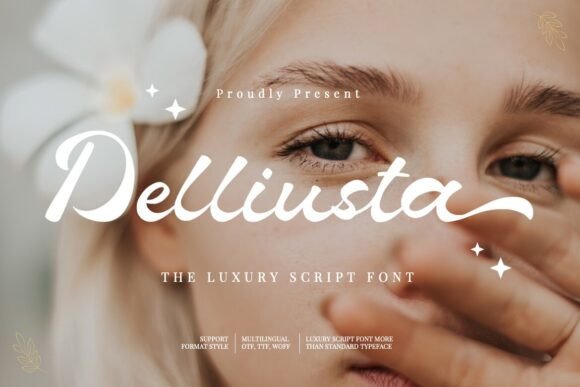
Delliusta Font: Elevate Your Designs with Luxury and Elegance
In the world of typography, fonts play a crucial role in conveying the tone and personality of a brand or design. Among the numerous fonts available, Delliusta stands out as a luxurious and elegant script font that has gained popularity for its unique, handwritten feel. In this article, we’ll delve into the features, benefits, and uses of the Delliusta font, exploring how it can elevate your designs to new heights of sophistication and style.
What is Delliusta Font?
Delliusta is a luxury script font designed to add a touch of elegance and refinement to any design project. Its smooth, flowing letters are carefully crafted to create a sophisticated and luxurious look, making it perfect for high-end designs, invitations, logos, and more. The font’s unique, handwritten feel sets it apart from other script fonts, giving it a distinctive and eye-catching quality.
Key Features of Delliusta Font
- Elegant and Stylish: Delliusta boasts a sleek and refined design, perfect for creating upscale visual content.
- Handwritten Feel: The font’s unique, handwritten quality gives it a personal and distinctive touch.
- Smooth and Flowing Letters: Delliusta’s letters are designed to flow smoothly, creating a sense of continuity and harmony.
- Luxurious and Sophisticated: The font’s luxurious feel makes it ideal for high-end designs, invitations, and logos.
- Versatile: Delliusta can be used for a wide range of design projects, from branding and advertising to packaging and editorial design.
Benefits of Using Delliusta Font
Using Delliusta font in your design projects offers numerous benefits, including:
- Instant Elegance: Delliusta adds a touch of elegance and sophistication to any design, instantly elevating its visual appeal.
- Unique Identity: The font’s distinctive, handwritten feel helps create a unique identity for your brand or design.
- Improved Readability: Delliusta’s smooth and flowing letters ensure excellent readability, making it perfect for body text and headlines.
- Flexibility: The font’s versatility allows you to use it for various design projects, from digital to print.
Design Applications of Delliusta Font
Delliusta font is suitable for a wide range of design applications, including:
- Logo Design: Create stunning logos that exude luxury and sophistication.
- Invitations: Design elegant invitations for weddings, parties, and other special events.
- Branding: Elevate your brand’s visual identity with Delliusta’s luxurious feel.
- Advertising: Use Delliusta to create eye-catching ads that grab attention.
- Packaging: Add a touch of elegance to your product packaging with Delliusta.
- Editorial Design: Use Delliusta for editorial design projects, such as magazines, newspapers, and blogs.
Tips for Using Delliusta Font Effectively
To get the most out of Delliusta font, follow these tips:
- Pair with Neutral Colors: Combine Delliusta with neutral colors to create a balanced and harmonious design.
- Experiment with Font Sizes: Play with different font sizes to create visual hierarchy and emphasis.
- Use for Headlines and Titles: Delliusta is perfect for headlines and titles, adding a touch of elegance and sophistication.
- Add Texture and Patterns: Add texture and patterns to your design to create depth and visual interest.
Font Pairing Suggestions
To create a harmonious design, pair Delliusta with other fonts that complement its style. Some font pairing suggestions include:
Delliusta font is a luxurious and elegant script font that can elevate your designs to new heights of sophistication and style. Its unique, handwritten feel and smooth, flowing letters make it perfect for upscale designs, invitations, logos, and more. By understanding the features, benefits, and uses of Delliusta font, you can create stunning designs that leave a lasting impression.